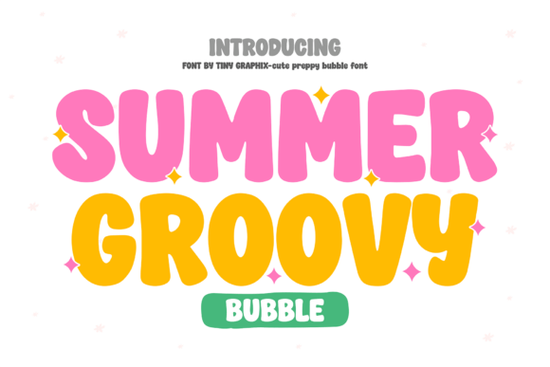
If you're looking for a bold, cheerful typeface with retro summer energy, the Summer Groovy Bubble font is worth a close look. Designed by Tiny Graphix, this chunky Summer Groovy Font features thick, rounded letterforms with a playful preppy vibe. It's built for projects where you want personality to come through without looking messy or hard to read.
What does the Summer Groovy Bubble font actually look like?
Think of puffy, inflated letters with soft, rounded edges almost like bubble gum shaped into an alphabet. The letterforms are wide and chunky, carrying a retro 1970s feel mixed with a modern preppy edge. Every character holds consistent weight, which helps it stay readable even at larger display sizes where some decorative fonts start to break down.
Because it's a display typeface, it's designed for headlines, logos, and short text not body paragraphs. Pair it with a clean sans-serif for longer copy and you'll get a nice visual contrast that keeps layouts balanced and professional.
What can you actually use this font for?
This is a surprisingly versatile typeface for creative work. Here are some of the most popular uses:
- Custom stickers and planner accessories The bubbly shapes look great on die-cut stickers, washi tape, and journaling kits.
- Party invitations and event decor Birthday banners, baby shower invites, and graduation party designs all benefit from the cheerful, approachable feel.
- T-shirt and apparel graphics Works well for summer-themed or retro streetwear designs where you need bold, eye-catching text.
- Social media templates Bold, readable type helps Instagram posts, story templates, and Pinterest pins stand out in a crowded feed.
- Small business branding For brands with a fun, youthful personality, it can work in logos, product packaging, or storefront signage.
- Greeting cards and stationery The warmth of those rounded shapes makes it a natural fit for heartfelt, lighthearted card designs.
Is it a good fit for print-on-demand sellers?
Yes fonts like this tend to perform well in print-on-demand. When shoppers scroll through listings on Redbubble, Etsy, or Merch by Amazon, bold and rounded typefaces catch the eye in thumbnail previews. The groovy bubble lettering style reads clearly at small sizes, which matters a lot in crowded marketplaces where you have about two seconds to grab attention.
How does it compare to other playful display fonts?
There's no shortage of fun, bubbly typefaces out there, but what makes this one stand out is its consistency. Some chunky fonts have uneven baselines or exaggerated quirks that make them harder to work with in polished designs. This one keeps things clean while still feeling expressive and playful.
- ✅ Choose the right pairing Match it with a simple sans-serif for body text so the display font stays the star of your design.
- ✅ Know your audience This style works best for fun, youthful, or retro-themed projects. It may not suit formal or luxury branding.